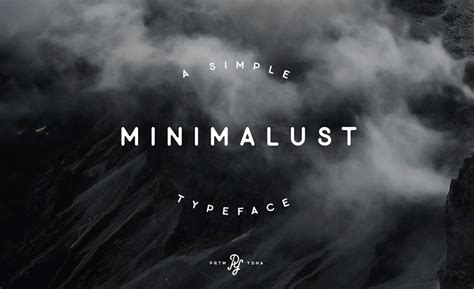
The Rise of Modern Fonts: Unlocking New Design Opportunities
Modern fonts have been making waves in the design world, captivating the attention of businesses, creatives, and everyday users alike. But what's behind this sudden surge in interest? Is it the latest must-have aesthetic or something more substantial? In this article, we'll peel back the layers to explore the world of modern fonts, answering the questions you're dying to ask and uncovering the hidden benefits of integrating these stylish typography into your life.
Why Modern Fonts Is Gaining Attention in the US
Understanding the Context
Modern fonts are an integral part of graphic design, web development, and even advertising. The growing popularity can be attributed to several factors: the increasing need for digital information to be clear and easy to read, the rise of responsive and mobile-first design, and the general shift towards more modern and clean aesthetics. Businesses looking to boost their brand recognition and messages that need to be sharp and clear often switch to modern fonts. Moreover, the diversity of modern fonts has something for everyone, from classic and sophisticated to bold and playful styles, making them appealing to a wide audience.
How Modern Fonts Actually Works
At its core, typography plays a significant role in how people perceive messages and information. Modern fonts are designed to enhance readability, and they allow for a more professional and polished look in both digital and print materials. Comprising various styles, characters, and font sizes, modern fonts provide versatility in design, whether it's creating brand logos or presenting the day's newspaper. Their layout design also supports different screen sizes, making them adaptable and beneficial for web designers and content creators.
Common Questions People Have About Modern Fonts
1. What Are the Key Features of Modern Fonts?
Modern fonts are identified by their clean lines, minimal detailing, and often simple style, making them easy on the eyes. Many modern fonts also come with a range of variations in terms of size, language support, and digital readability.
2. Are Modern Fonts Compatible with All Devices?
Most modern fonts are designed to adapt seamlessly to different screen sizes and resolutions, ensuring a smooth viewing experience for website visitors. This compatibility is primarily due to web-friendly design and dynamic font systems.
3. Can I Make Custom Changes to Modern Fonts?
Since many modern fonts are software-based and digital, certain adjustments and personalizations can be achieved through the use of specialized tools and plugins. Users can modify font sizes, change themes, and integrate new fonts to create a customized look and feel.
Opportunities and Considerations
While modern fonts offer a plethora of benefits, there are also considerations to keep in mind. For instance, understanding the subject matter necessitates a careful approach to integration. Each font style might evoke a unique feeling or aesthetic that could either align well or clash with a particular project's tone and mood. Designers must weigh the practical advantages of modern fonts against the potential risks of disrupting a brand's visual identity.
Things People Often Misunderstand
- Myth: Modern fonts are only for young and tech-savvy individuals.- Reality: Modern fonts cater to a broad spectrum of users, from professionals to individuals who value a clear and readable visual experience, regardless of age or digital proficiency.
Who Modern Fonts May Be Relevant For
Modern fonts can satisfy the demands of a wide variety of users and industries, including:
- Creative Agencies: For clients who want to convey a clear, and modern message, modern fonts are an excellent option.- Individuals: Anyone looking to improve their digital reading experience or wanting to personalize their content—be it for a blog or even a social media profile.- Educational Institutions: By using modern fonts, educators can create informative and visually appealing materials that appeal to today's students.
Expanding Your Typography Options
While modern fonts offer a plethora of benefits, they might not be the right fit for every project. Keeping an open mind and exploring different typography styles can enrich your design approach. Not all designs require the trendy look of modern fonts. Sometimes, classic serif fonts offer gravitas and elegance that traditional publishers and art editors back for a reason.